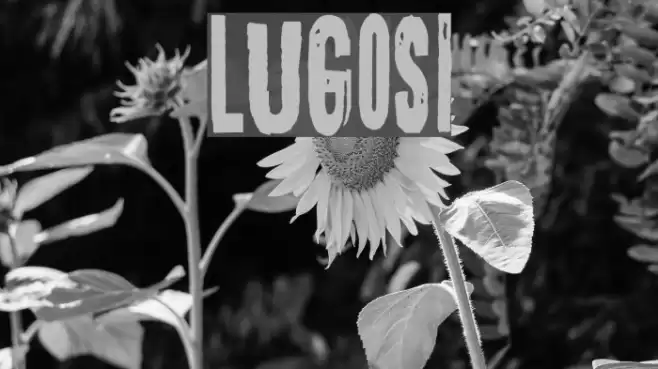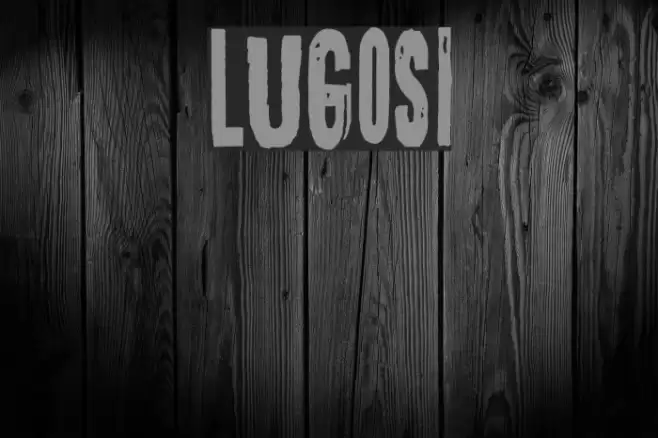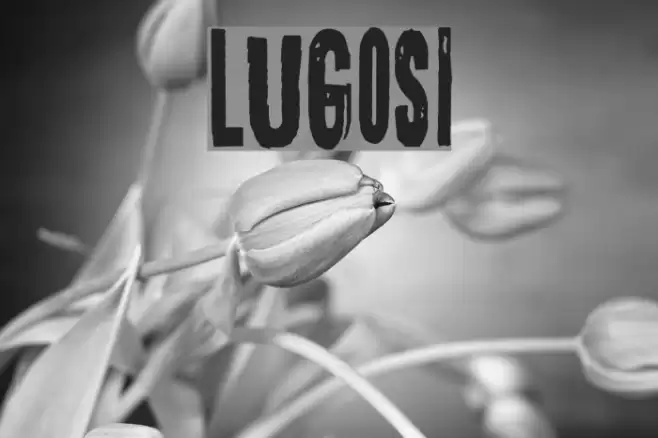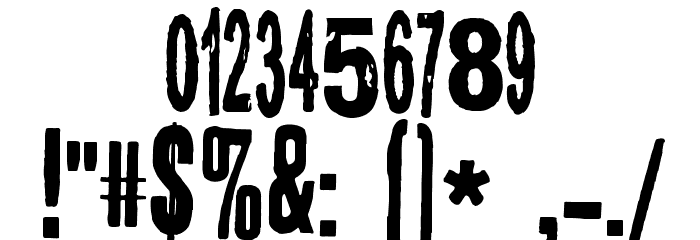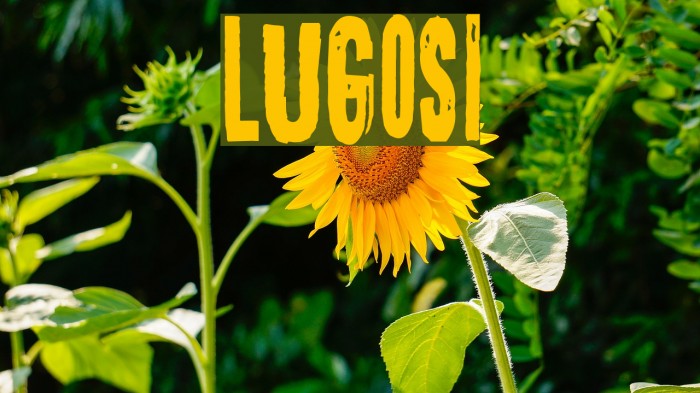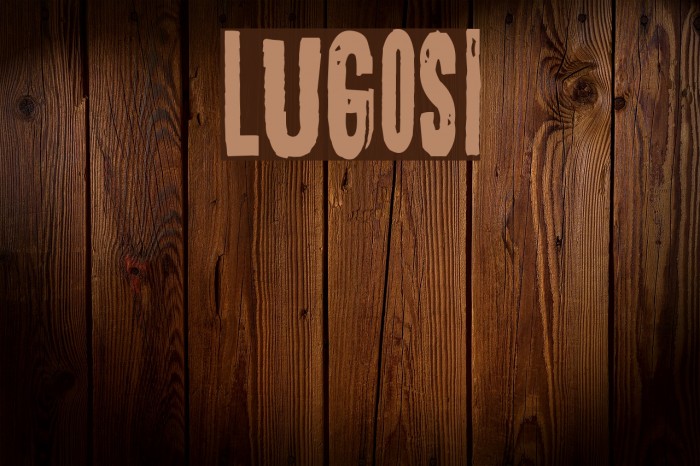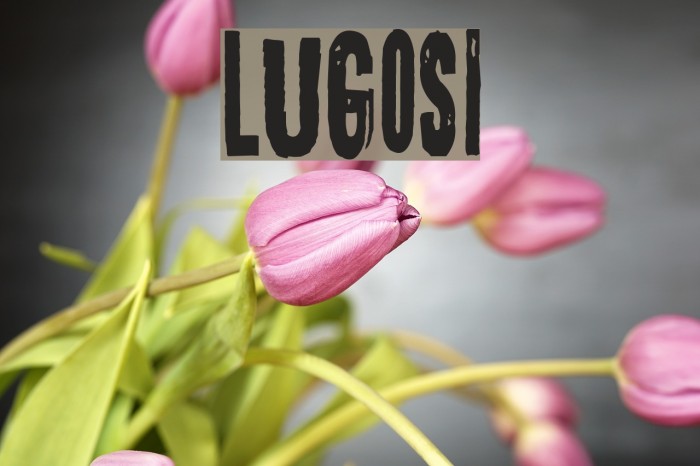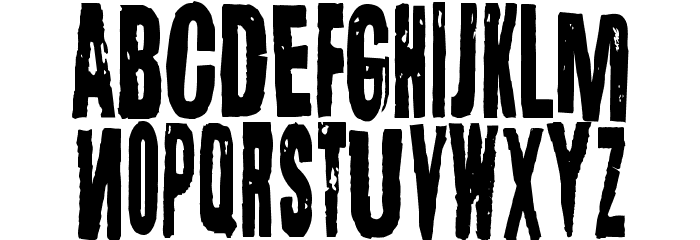
Lugosi Font
Lugosi Description
This font features a distressed, grunge style with a bold and impactful presence. The characters are unevenly textured, giving them a worn and rugged appearance. The uppercase and lowercase letters maintain a consistent height, contributing to a cohesive look. The numbers and special characters follow the same distressed aesthetic, making the font suitable for projects that require a raw, edgy feel. The overall design is eye-catching and ideal for creating a dramatic effect.
A bold, distressed font with a grunge aesthetic from Distorted Eroded fonts.
- Proposed Projects: Ideal for music album covers, horror movie posters, edgy branding, and streetwear designs.
- Overall Style: Grunge, Edgy
- Use Case: Headlines, Posters, Branding